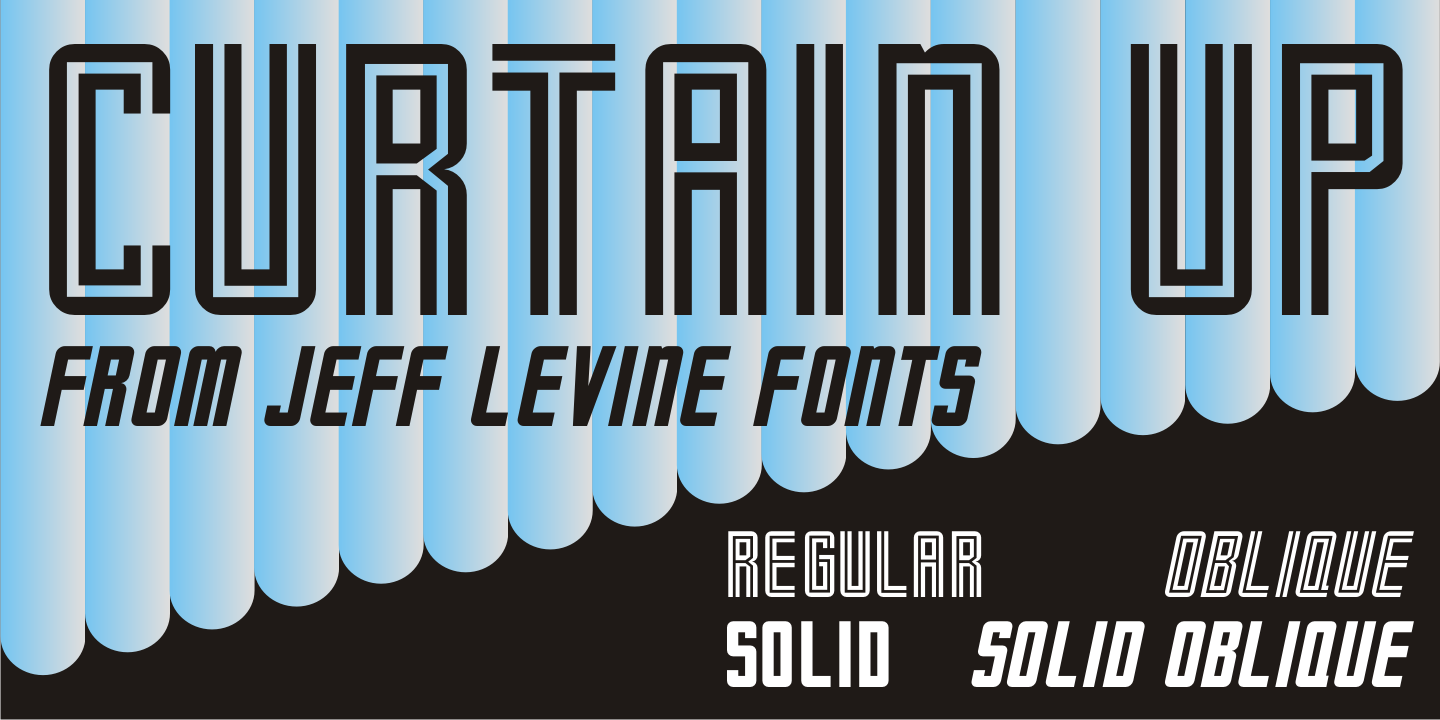
Step into the spotlight with Curtain Up JNL Font Free Download – a dramatic, show-stopping typeface inspired by vintage theater marquees and Broadway playbills. This bold display font captures the golden age of entertainment with its theatrical flourishes, perfect for projects needing performance flair and nostalgic charm.
Why Curtain Up JNL Stands Out
Curtain Up JNL Font Free Download delivers:
Bold, attention-commanding letterforms
Authentic 1920s-30s theater aesthetic
Perfect balance of ornamentation and readability
Versatile applications from classic to contemporary
Curtain Up JNL Font Free Download Technical Features:
Uppercase characters with dramatic presence
Includes alternate "spotlight" glyphs
Optimized for large-scale applications
Show-Stopping Applications:
Theater/music event posters
Performing arts branding
Vintage-inspired packaging
Film festival graphics
Classic entertainment titles
Design Tip: Pair with velvet textures and gold foil effects for authentic marquee appeal!